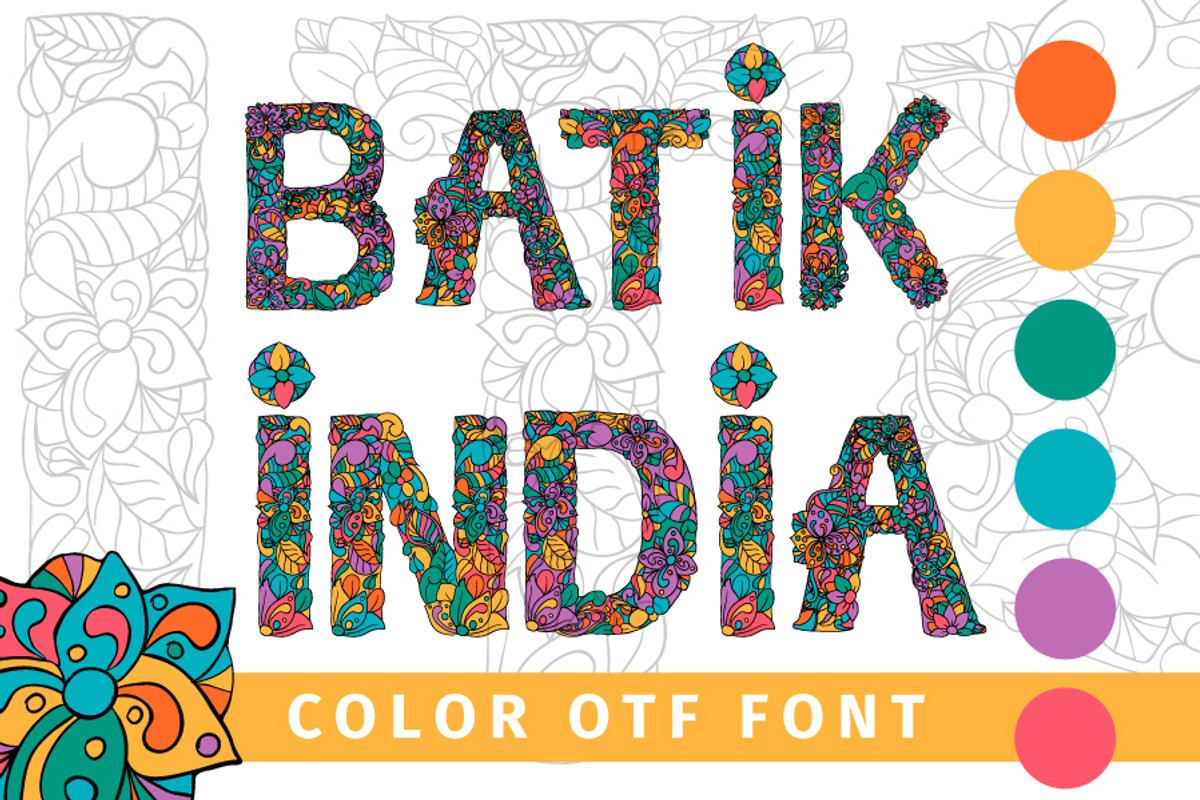
Batik India Color Font Free Download is a unique and vibrant font inspired by the intricate patterns and rich cultural heritage of Indian batik textiles. With its decorative, hand-crafted design, this font is perfect for designs that need a touch of ethnic elegance, such as logo designs, cultural branding, packaging, event invitations, and posters.
Featuring bold strokes and ornate flourishes, Batik India Color Font captures the essence of traditional artistry while offering a modern aesthetic. Its colorful design makes it especially suitable for projects that aim to evoke cultural richness, diversity, and artistic flair.